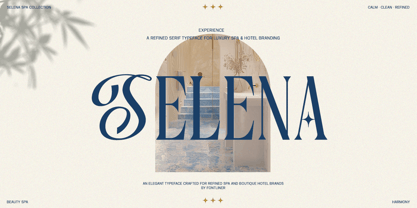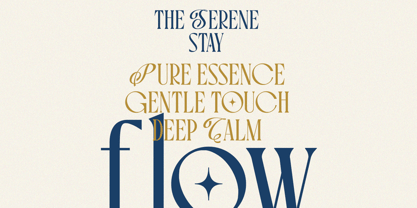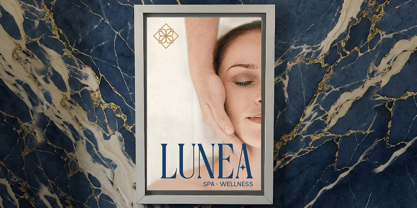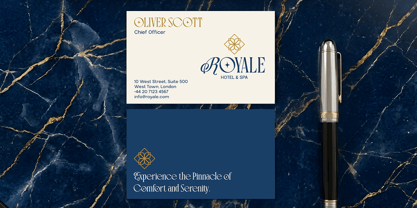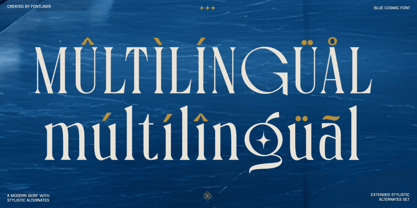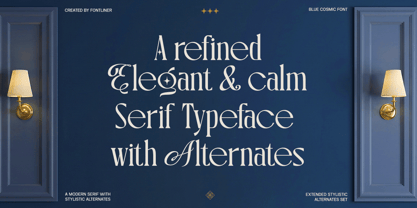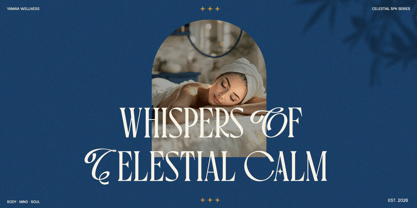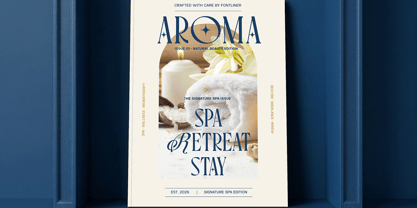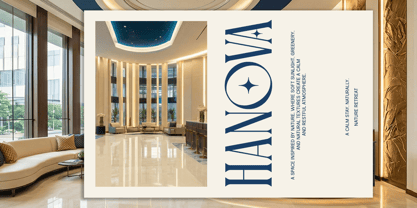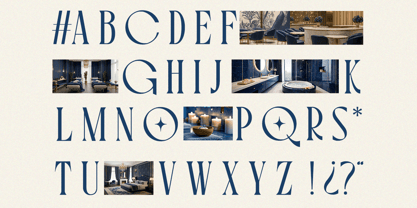
Blue Cosmic
par Font Liner
La famille de polices Blue Cosmic a été conçue par Ghina Luthfiarieska et publiée par Font Liner. Blue Cosmic contient 2 styles et options de package familial. En savoir plus sur cette famille
Blue Cosmic is an elegant serif typeface that seamlessly blends modern sophistication with subtle decorative flair. Crafted with refined curves and stylish alternates, this font delivers a graceful and artistic presence that enhances any visual composition. Its unique character details create a distinctive look while ensuring clarity and readability. With both regular and italic styles, Blue Cosmic offers versatility for a wide range of design applications. The inclusion of special alternates empowers designers to explore creative typography and develop more expressive layouts. This typeface is ideal for branding, editorial design, fashion visuals, and luxury packaging, where elegance is paramount. Built with multilingual support and meticulously balanced letterforms, Blue Cosmic is suitable for global and professional use. Whether you're designing a premium brand identity or a chic headline, this typeface imparts a refined and modern aesthetic to every project.
Concepteurs: Ghina Luthfiarieska
Fonderie: Font Liner